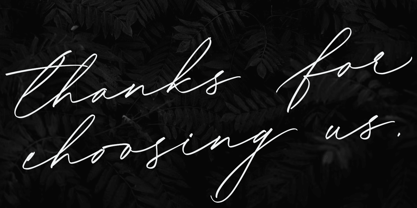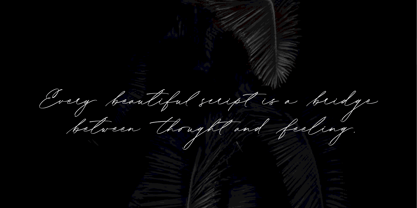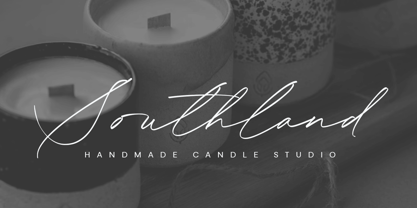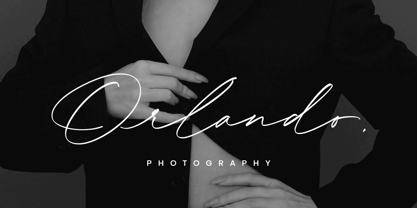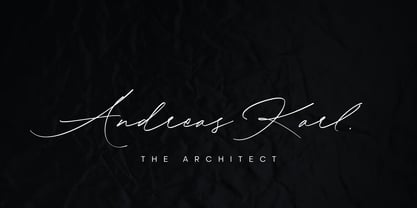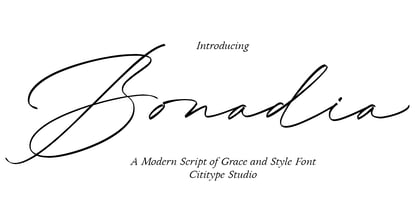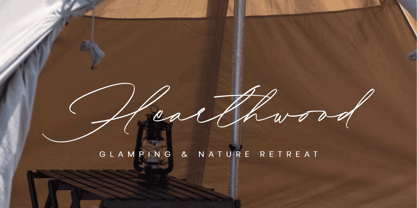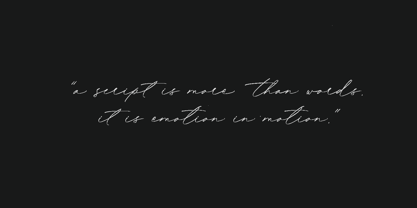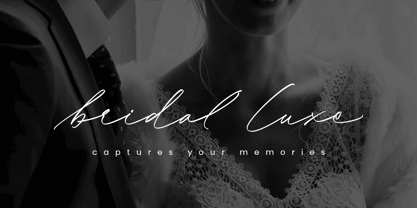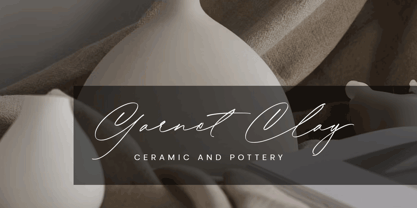
Bonadia
by Cititype
The Bonadia Font Family was designed by Siti Saribanon Nurjannah and published by Cititype. Bonadia contains 1 styles. More about this family
Bonadia is a beautifully crafted modern script font that radiates elegance and charm. Designed with a perfect balance between sophistication and natural flow, Bonadia captures the effortless beauty of handwritten calligraphy in a refined contemporary form. Every stroke feels graceful and intentional, making it ideal for logos, wedding invitations, branding materials, fashion projects, and editorial designs that seek a touch of personal warmth. Beyond its stunning appearance, Bonadia is thoughtfully equipped with features that enhance both creativity and usability. It supports Latin Extended languages, allowing your designs to reach a wider global audience. The font includes stylistic alternates for lowercase letters, giving you the flexibility to create unique and expressive compositions. Ligatures are carefully designed to ensure smooth connections between letters, enhancing the natural handwritten flow. Additionally, Bonadia comes with elegant initial and final forms, adding a touch of sophistication to every beginning and ending stroke. Whether used for a signature-style logo, a graceful headline, or romantic stationery, Bonadia delivers a sense of artistry and timeless style in every letter.
Designers: Siti Saribanon Nurjannah
Foundry: Cititype